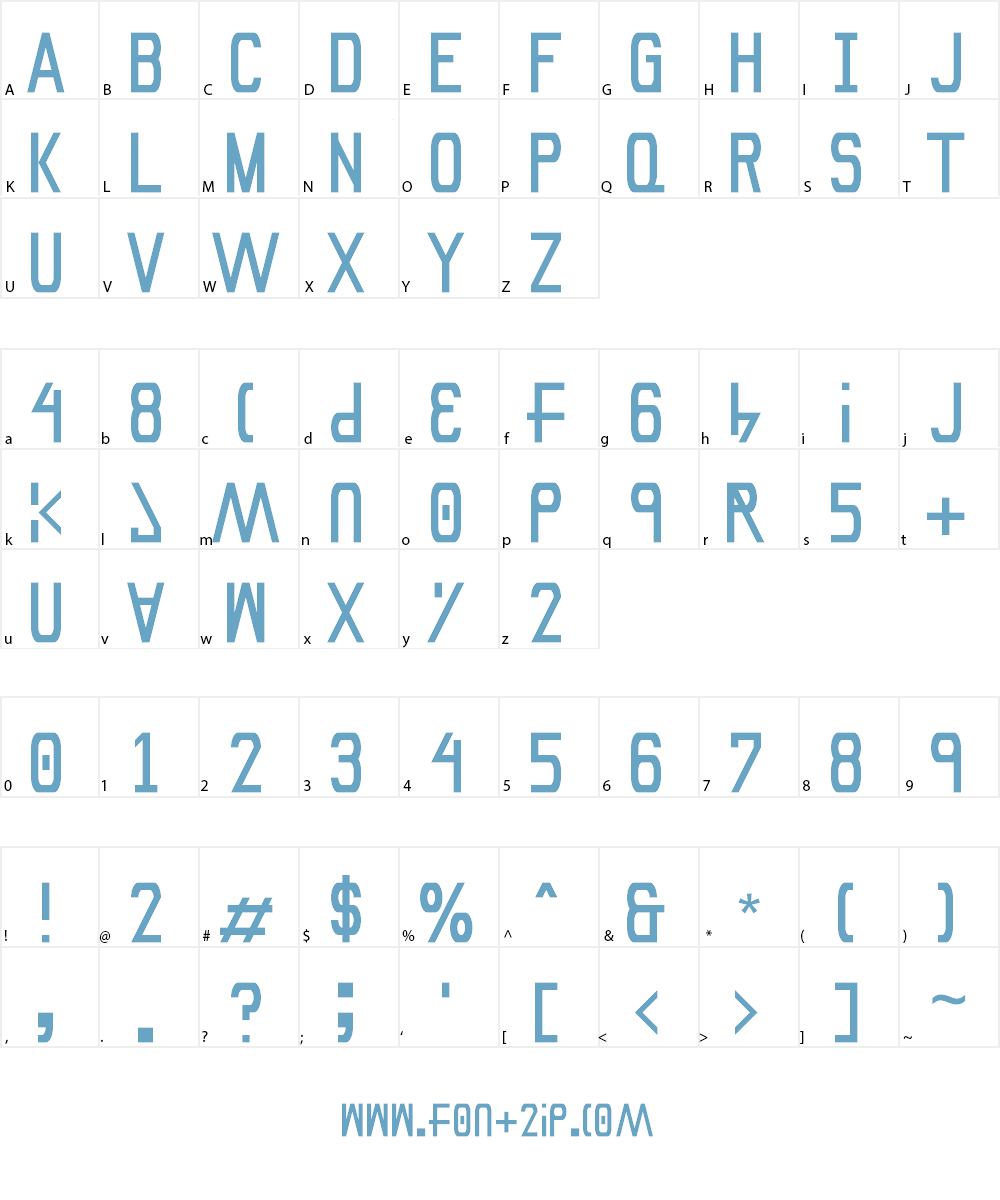
A bold all-caps font inspired by outdoor sign lettering.
CHANGES IN THIS VERSION:
-Added Signus Alternates
Signus Alternates contains alternate glyphs in the lowercase area (like you would see on a sign where some letters are missing) The uppercase letters are regular Signus.